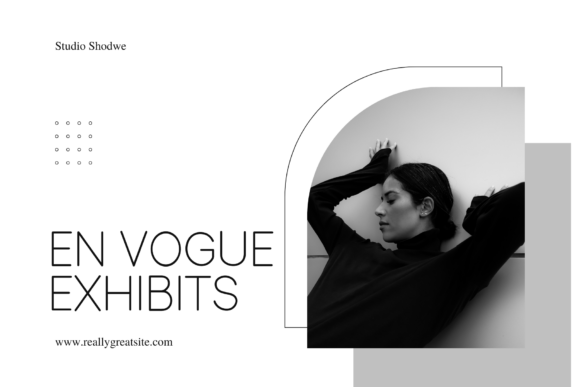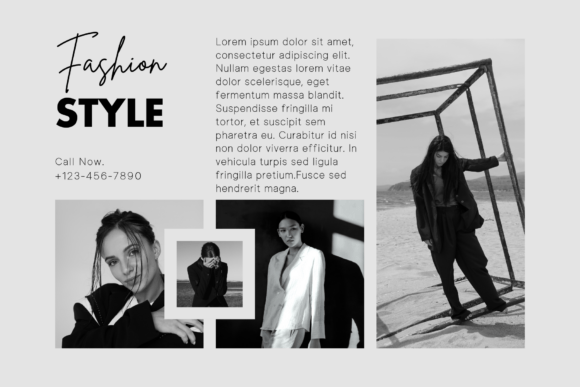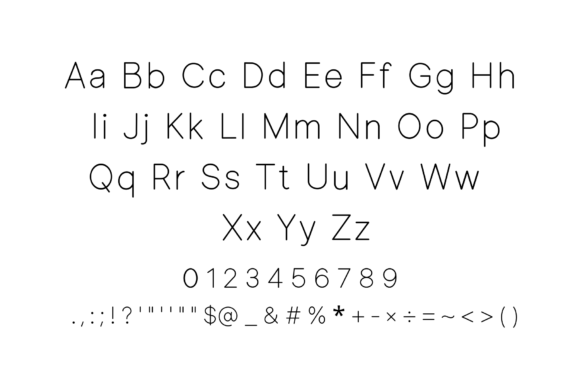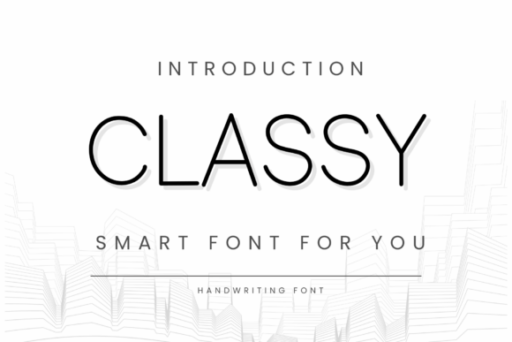
Classy Font
Classy Font brings a simple, neat design to your projects. Its clean lines create a professional and elegant look. Perfect for: Boost your designs with Classy’s modern t…
Classy Font brings a simple, neat design to your projects. Its clean lines create a professional and elegant look.
Where Classy Font works best
Classy Font stays legible at small sizes, which makes it a strong choice for navigation, buttons and dashboards in web design and app interfaces.
Clean sans serifs like Classy Font are the default language of SaaS, fintech and product branding.
What is Classy Font good for?
Classy Font is a Sans Serif Fonts typeface tagged Clean, Elegant, Modern, Professional. It works well for headlines, logos, posters, social media graphics and branding projects that need a distinctive sans serif fonts look.